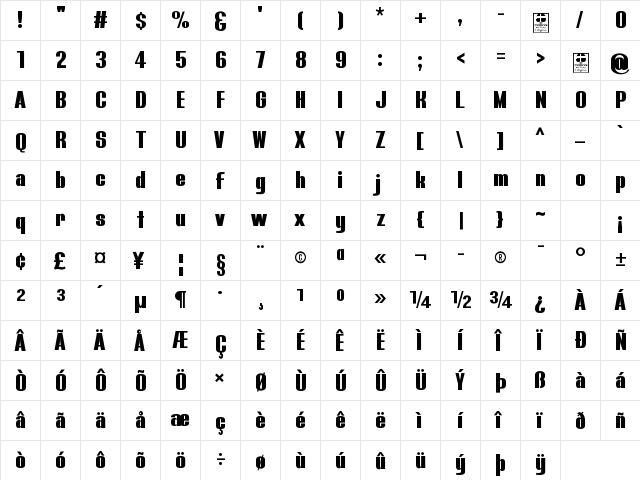
Bluefish Black Demo Regular
| Foundry | StudioTypo |
| Designer | Mehmet Abac |
Design Context for Bluefish Black Demo Typeface
Bluefish Black Demo takes a measured approach to typography — its balanced proportions and neutral character make it a reliable workhorse for both digital and print work.